I've just started using Mathematica 10 on Linux and have immediately run into problems with the fonts. Fonts on Linux are always a headache, but I had managed to find a reasonable one in "Century Schoolbook L". However, in Mathematica 10, this font and many others are being displayed with incorrect special characters and punctuation.
It seems like Mathematica is trying to assign sans-serif default (that is, not appearing in the font specified) characters when it needs to be using serif.
I have tried messing with "OperatorSubstitution" and "FontSerifed". The former can change the parentheses, but neither affects the Greek. My only current recourse is to select one of the fonts that (seemingly randomly) does not suffer this problem; "Linux Libertine O", for example.
Is this a bug? Is there a workaround?
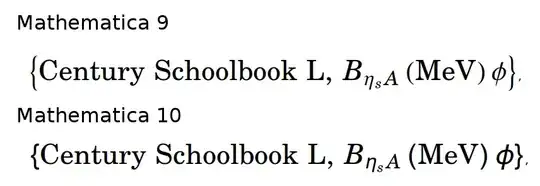
Example of problematic text; note the Greek and parentheses
• not so relevant but I have found using LaTeX fonts in Mathematica to be useful. So that when writing papers using LaTeX, your figure captions has exactly the same font (latin modern roman, which is sans-serif font). – Yi Wang Jul 24 '14 at 17:27
The answer to this question is inspired by @DBM answering on a related issue: How to write plain Greek in a text cell
I had a similiar problem, in summary:
1. I use Style["Some text with greek letters", FontFamily->"Some font, which includes greek letters"] and export it in pdf.
2. As the result the greek letters are shown with Mathematica font, and the rest with the chosen font.
3. Hence Mathematica replaces greek letters automatically into Mathematica font.
Not always a desired behaviour.
Moreover, since version 10: 1) PDF export has improved significantly, but 2) Internal fonts and encodings are stored differently.
Solution:
4. FontMap[[1,2]] contains character codes of the symbols, which will be replaced into Mathematica font. You can see, what characters are they exactly by running ReplacedCharacters = FromCharacterCode[#] & /@ FontMap[[1, 2]] . Furthermore, you can check, what do character codes signify by looking at http://reference.wolfram.com/language/tutorial/CharacterCodes.html .
5. For Mathematica not to replace the characters you like, you need to remove them from the list in FontMap. For example, I want Mathematica to replace only the characters which are not unicode characters. This means I should keep the characters with the code larger than 59391 (see the character codes web page): FontMap[[1, 2]] = Cases[FontMap[[1, 2]], x_ /; 59391 < x] . Now greek letters and other unicode symbols do not get replaced.
Done, now the fonts should look as they should!
Disclaimer: The above, however, solves my problem but not yours. It seems like the font you were using does not contain greek letters as a part of it. To see, which available fonts contain greek letters at all, one can go to Format-> Font and choose writing system to be Greek. The listed fonts are the ones, which include greek symbols.
• It worked perfectly Alexey. A million thanks. It was driving me crazy. – stathisk Nov 02 '14 at 03:06
• @Zet: Actually, I had very similar feelings here :) – Alexey Bobrick Nov 02 '14 at 10:37
• +1. Nice. Thanks to your explanations I automated the fix for this answer – SquareOne Sep 30 '15 at 17:47
• In this answer, on running step 4, does that assume that a bunch of Greek letters show up as part of the output? On my system (v10.4 over Ubuntu 15.10) there is only a smattering, even inside FromCharacterCode[#] & /@Cases[FontMap[[1, 2]], x_ /; 59391 > x]. – Emilio Pisanty Jun 09 '16 at 13:07
• Yes, should come up as a part of the output. More specifically, the replaced greek letters are at "FromCharacterCode[#] & /@ Cases[FontMap[[1, 2]], x_ /; 913 <= x <= 1009]". I checked it on by v 10.4 over Ubuntu 16.04. – Alexey Bobrick Jun 09 '16 at 16:58
Just for reference, let me post about what I do here as well.
I'm using Mathematica 10.0.1 for Mac. FontMap.tr is located at /Applications/Mathematica.app/Contents/SystemFiles/FrontEnd/TextResources.
Step 5 of Alexey's solution doesn't work for me. I have to remove FontMap[[3, 2]] instead:
Mathematica 10.0 with original FontMap.tr
• Mathematica 10.0 with new FontMap.tr
Mathematica 10.0 with new FontMap.tr
• Mathematica 10.0.1 with original/new FontMap.tr
Mathematica 10.0.1 with original/new FontMap.tr
• One way not to get greek symbols while controlling them is to actually modify Fonts.tr in such a way that greek symbols are substituded by a preferred font. This is in complete analogy to how back in the past one had to modify Unicode.tr, I believe. – Alexey Bobrick Oct 07 '14 at 13:31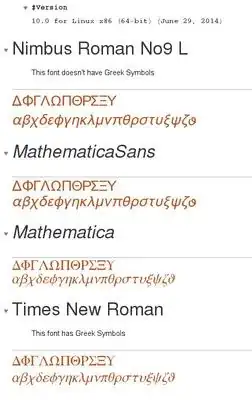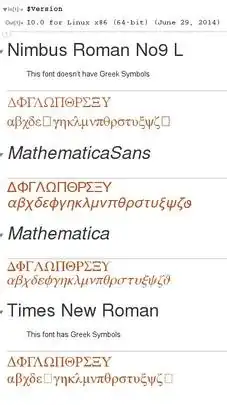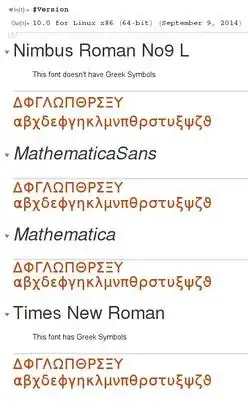